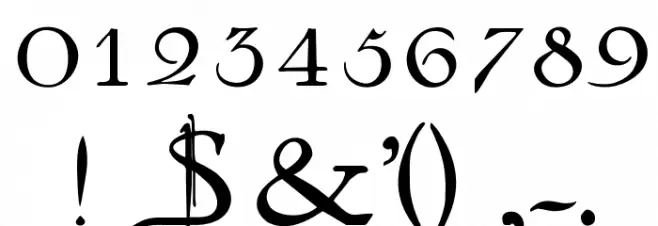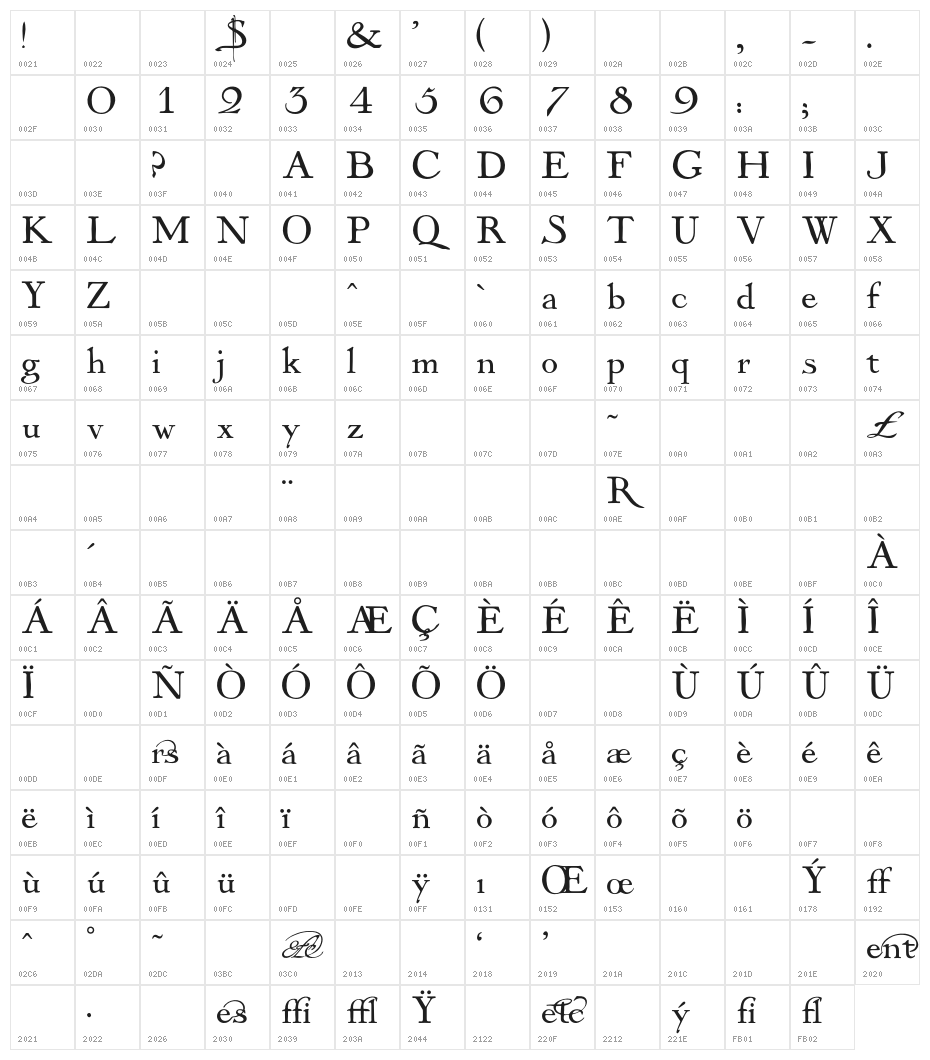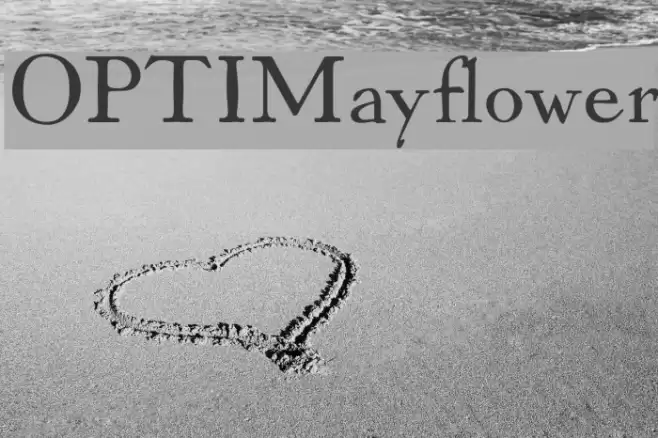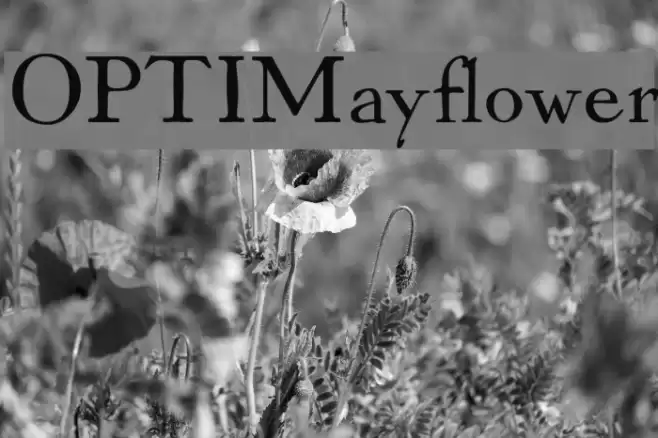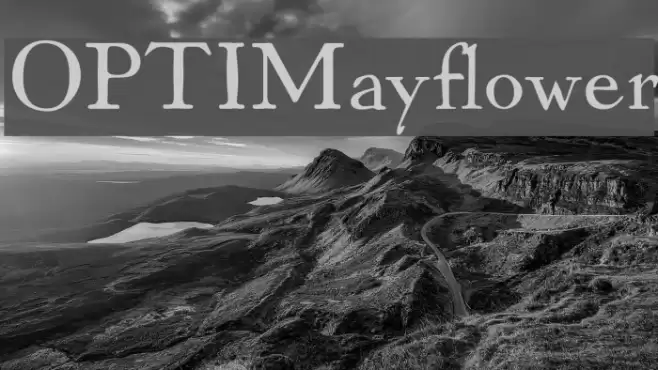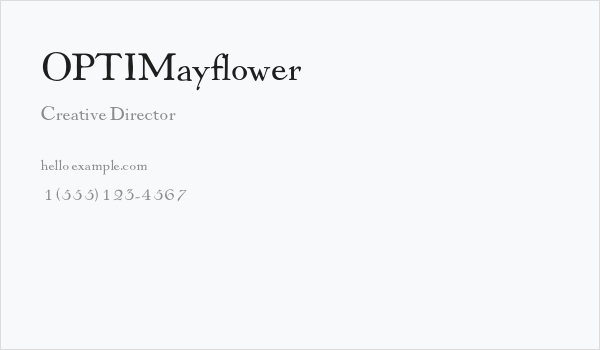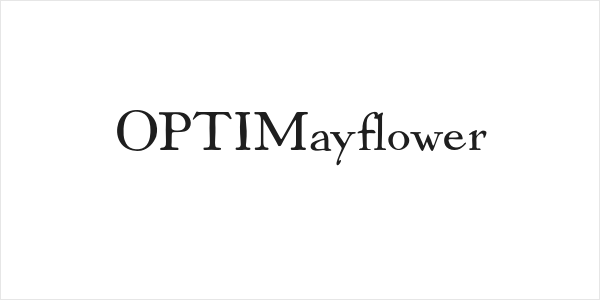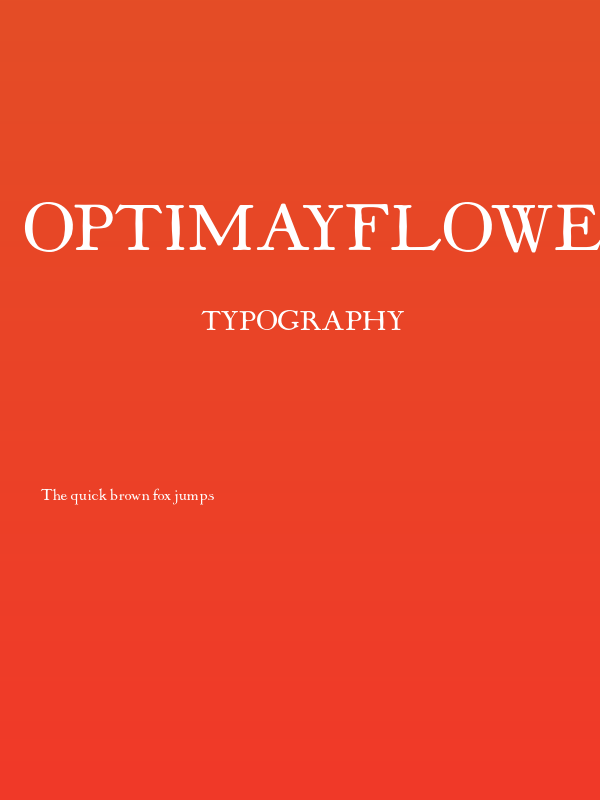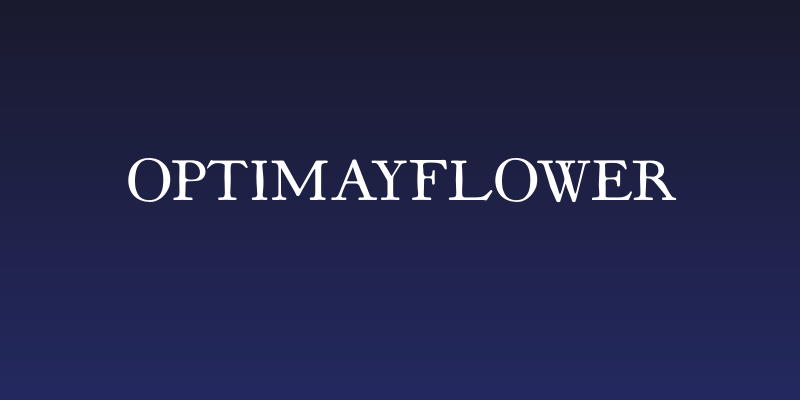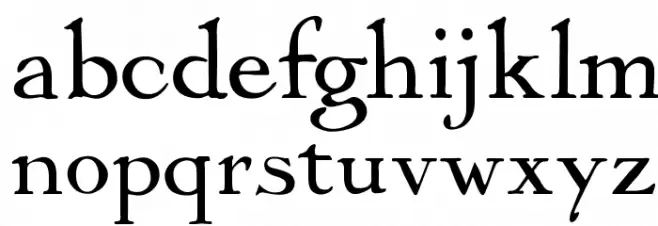
OPTIMayflower Font
OPTIMayflower Description
This font exhibits a classic serif style with elegant curves and a refined appearance. The uppercase letters are bold and commanding, while the lowercase letters maintain a graceful flow. The numerals are distinct and easily readable, complementing the overall sophisticated look. Special characters are well-integrated, maintaining the font's cohesive aesthetic. The serifs are pronounced, adding a touch of tradition and formality. This font is versatile, suitable for both digital and print media, and can convey a sense of reliability and professionalism.
| Proposed Projects | Ideal for book covers, formal invitations, branding for luxury products, and editorial design. |